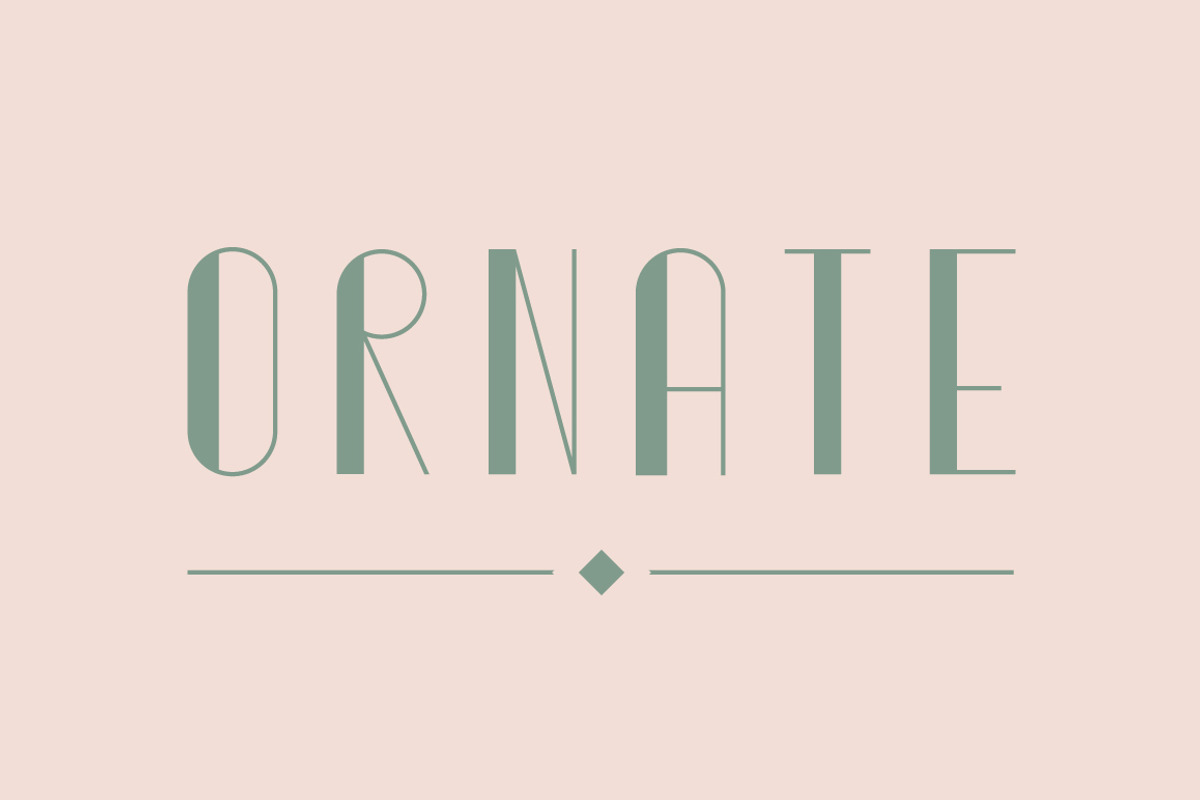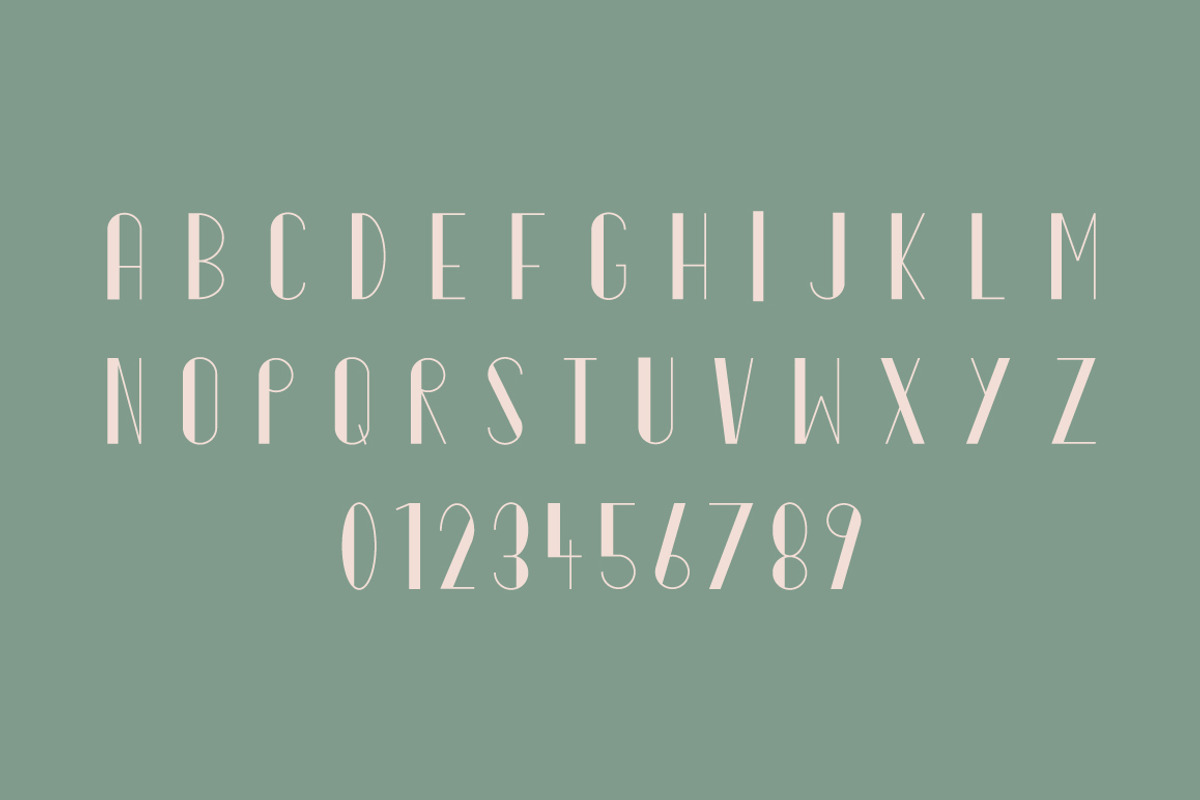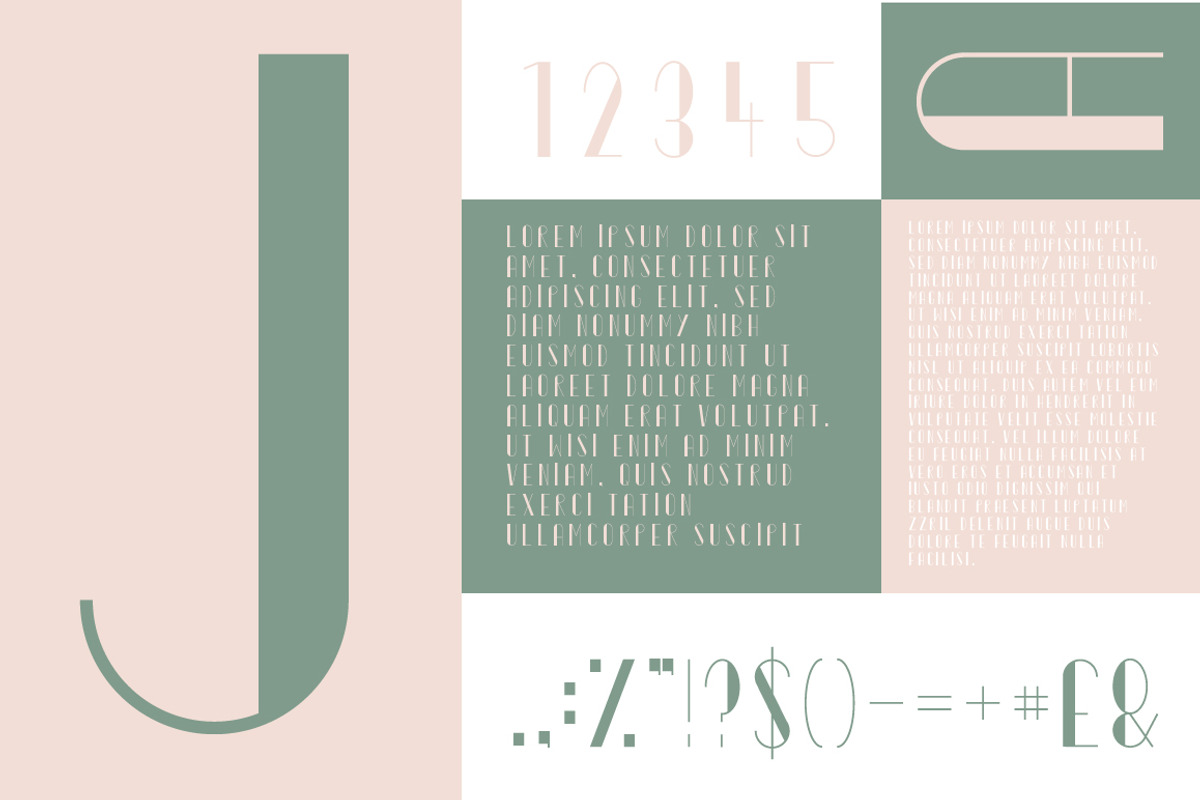
Ornate Typeface
Ornate Typeface by MikeHill is a font selected for branding, posters, packaging, typography.
- All caps, comes with numeral and basic punctuation.
Why Ornate Typeface is worth a look
Ornate Typeface by MikeHill fits naturally into Branding, posters, packaging, typography.